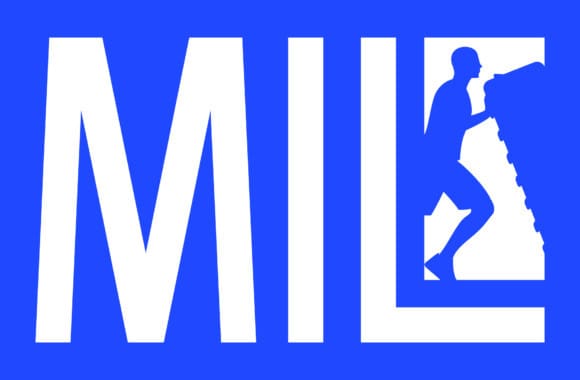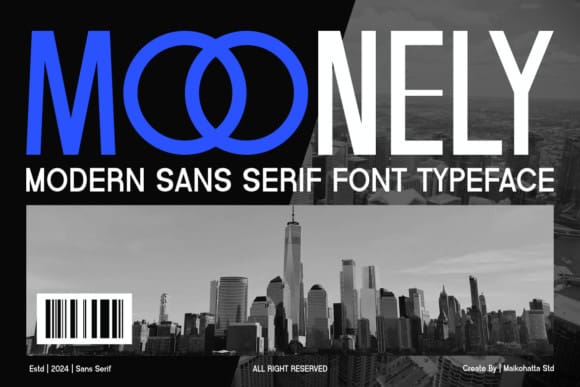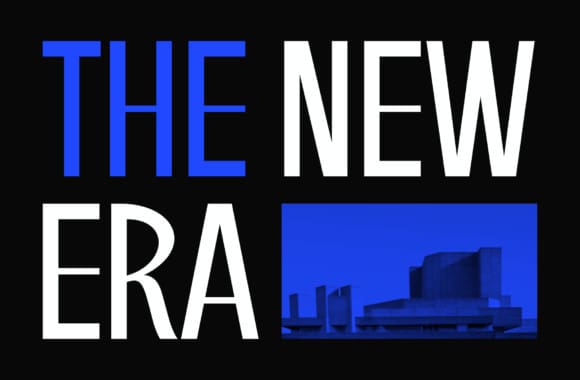
Moonely Font
Moonely Font – Modern Sans Serif Typeface. This Font is a very flexible choice and can be used in a variety of design contexts. Its ability to provide a clean, professional, contemporary look and its simplicity and visual appeal make this font good for use in the world of graphic design and modern typography.